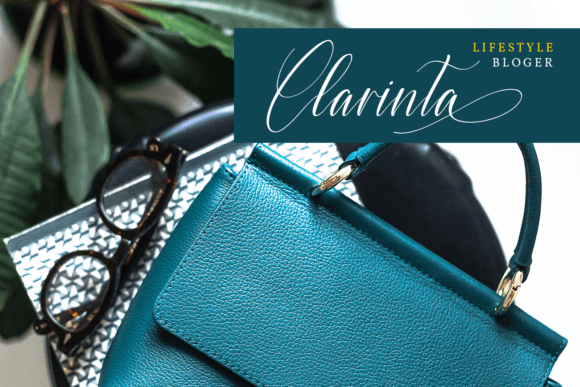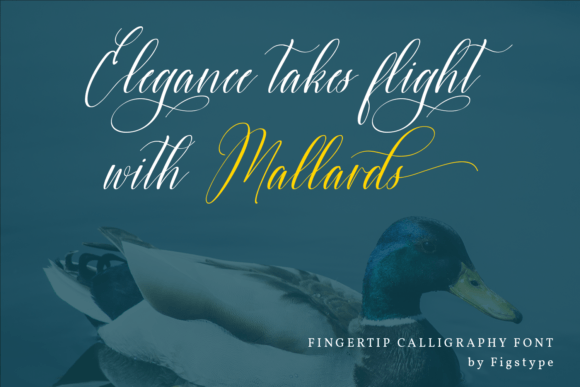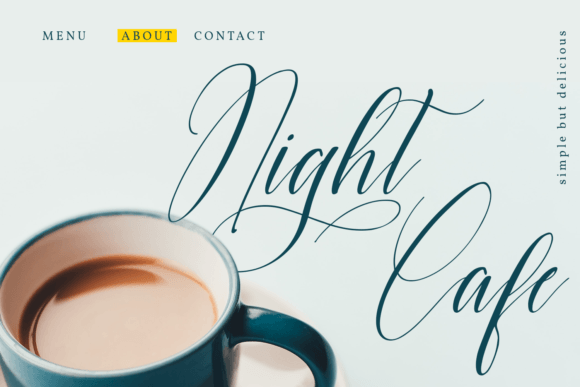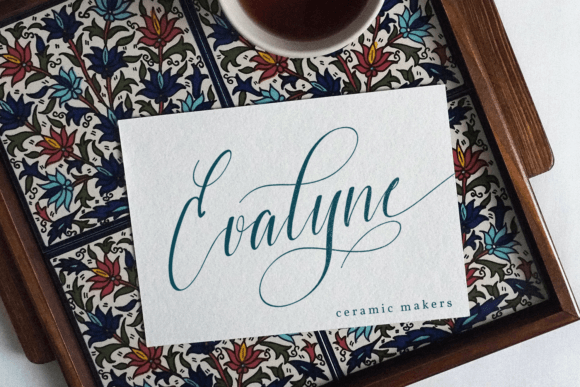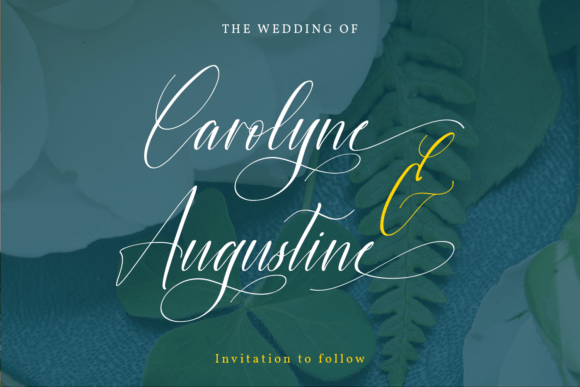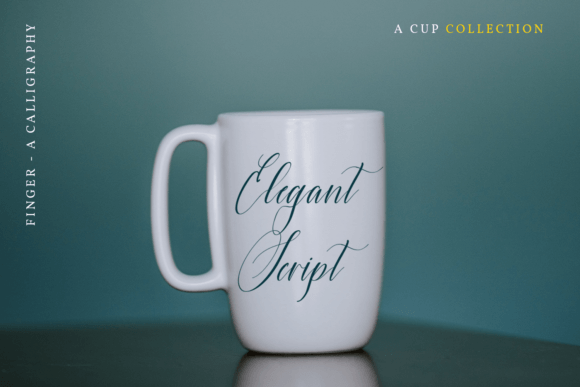
Introducing Fingertip: The Ultimate Calligraphy Font for Modern Designs
In the world of typography, a well-crafted font can elevate any design project from ordinary to extraordinary. For designers and crafters seeking a modern and sophisticated touch, look no further than Fingertip, a stunning calligraphy font that embodies the perfect blend of artistry and contemporary style.
The Art of Fingertip
Fingertip is a meticulously crafted calligraphy font that showcases a sleek and fluid style, effortlessly merging the art of handwriting with modern design. Its delicate curves and bold strokes create a beautiful visual harmony that is both captivating and elegant. Each letterform has been carefully designed to exude a sense of refinement and poise, making Fingertip an ideal choice for a wide range of creative projects.
Versatility and Flair
What sets Fingertip apart from other calligraphy fonts is its versatility and flair. The font comes with three swash variations, allowing designers to add a touch of drama and sophistication to their text. These swashes can be used to create captivating embellishments that elevate any design project, from wedding invitations and branding materials to logo designs and more.
Fingertip’s modern charm and timeless elegance make it an excellent choice for a wide range of creative projects. Whether you’re designing wedding invitations, branding materials, or logo designs, this font is sure to impress. Its versatility and flair allow it to adapt seamlessly to different design styles, ensuring that your project stands out from the crowd.
One of the most significant advantages of Fingertip is its PUA (Private Use Area) encoding. This means that designers can access all of the font’s amazing glyphs and ligatures with ease, allowing for seamless integration into their design projects. With PUA encoding, you can unlock the full potential of Fingertip and take your designs to new heights.
Why Choose Fingertip?
So, why choose Fingertip over other calligraphy fonts? Here are just a few reasons:
- Modern sophistication: Fingertip embodies the perfect blend of modern style and sophistication, making it ideal for designers seeking a contemporary touch.
- Versatility: With three swash variations and PUA encoding, Fingertip offers unparalleled versatility and flexibility.
- Elegance: Fingertip’s delicate curves and bold strokes create a beautiful visual harmony that is both captivating and elegant.
- Easy to use: With PUA encoding, accessing Fingertip’s glyphs and ligatures is a breeze, making it easy to integrate into your design projects.
Tips for Using Fingertip
To get the most out of Fingertip, here are a few tips:
- Experiment with swashes: Don’t be afraid to try out different swash variations to add a touch of flair to your design.
- Mix and match: Combine Fingertip with other fonts to create a unique and eye-catching design.
- Pay attention to spacing: Make sure to adjust the spacing between letters to ensure that your design looks polished and refined.
In conclusion, Fingertip is a stunning calligraphy font that offers a perfect blend of modern sophistication and timeless elegance. With its sleek and fluid style, versatility, and PUA encoding, Fingertip is an excellent choice for designers and crafters seeking to elevate their creative projects. Whether used in wedding invitations, branding materials, or logo designs, Fingertip is sure to impress. So why wait? Download Fingertip today and take your designs to new heights!